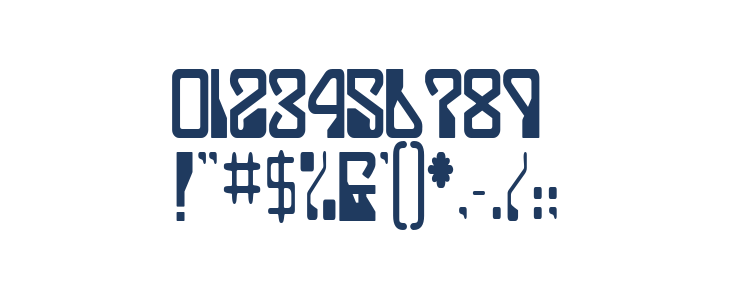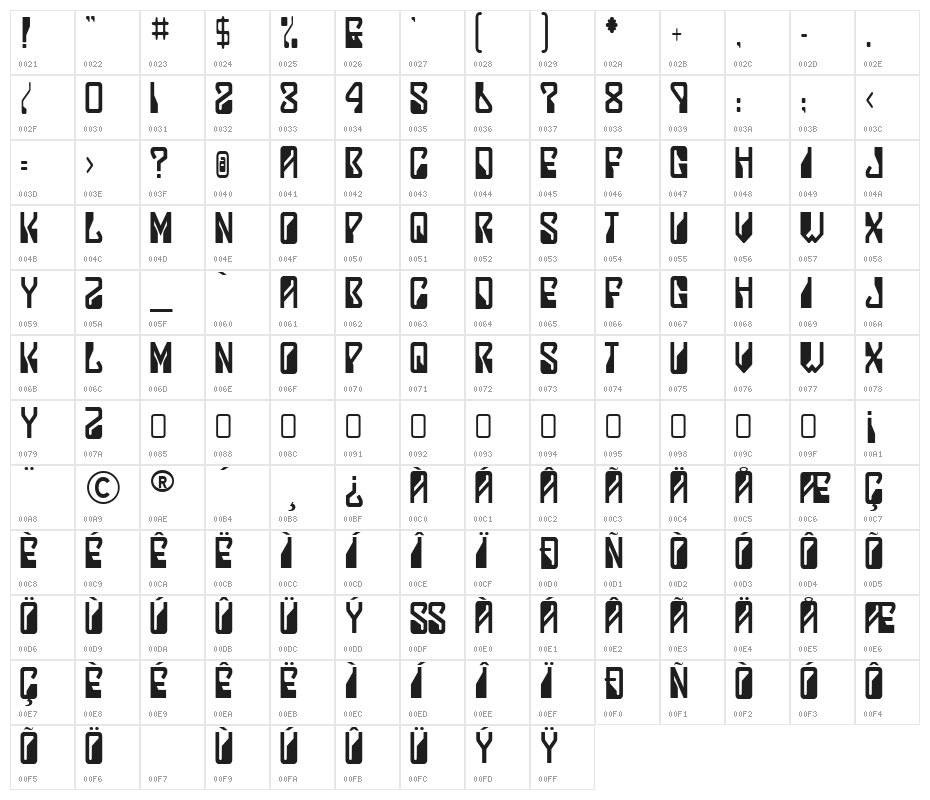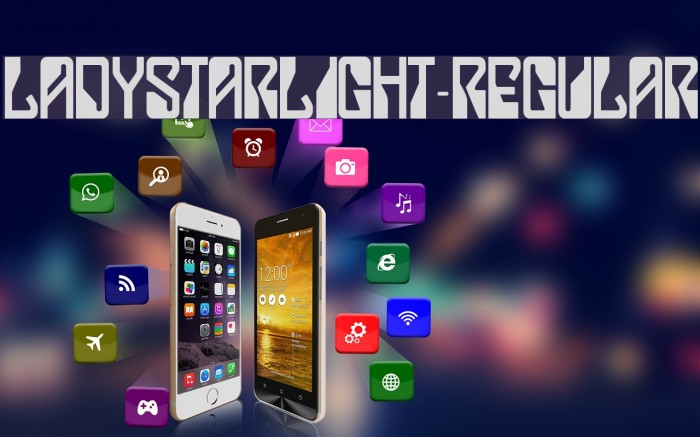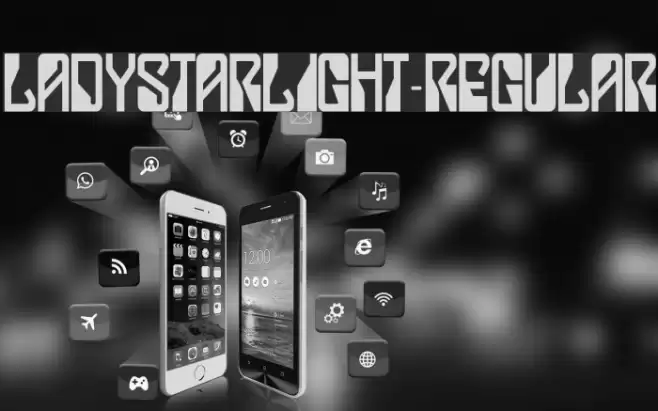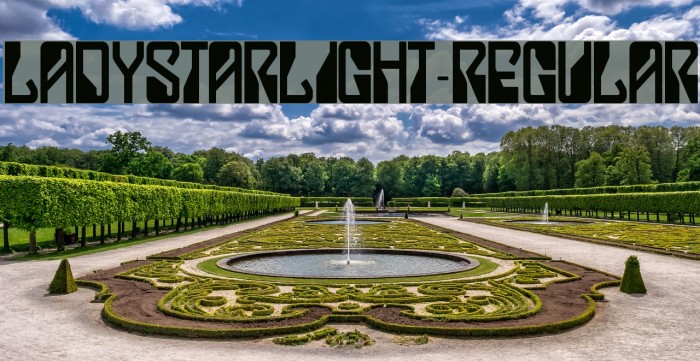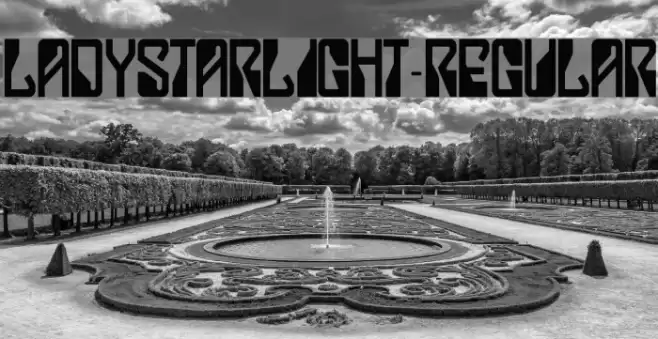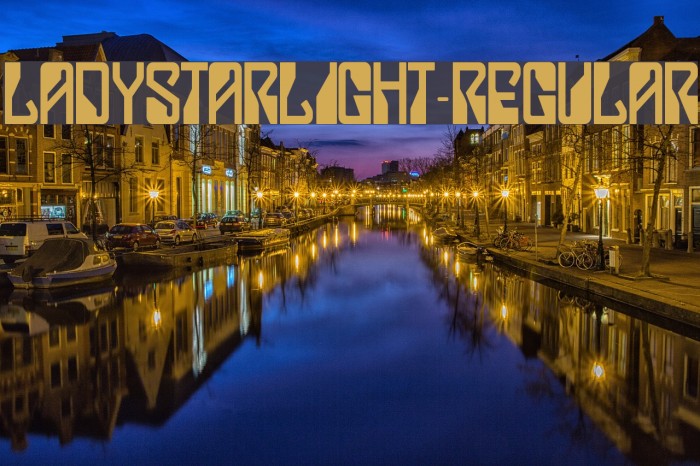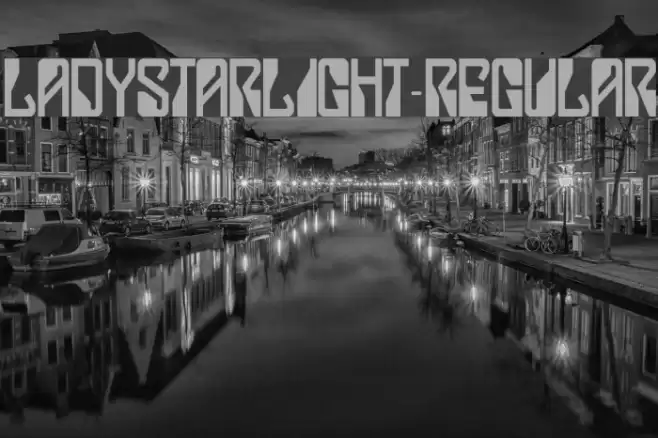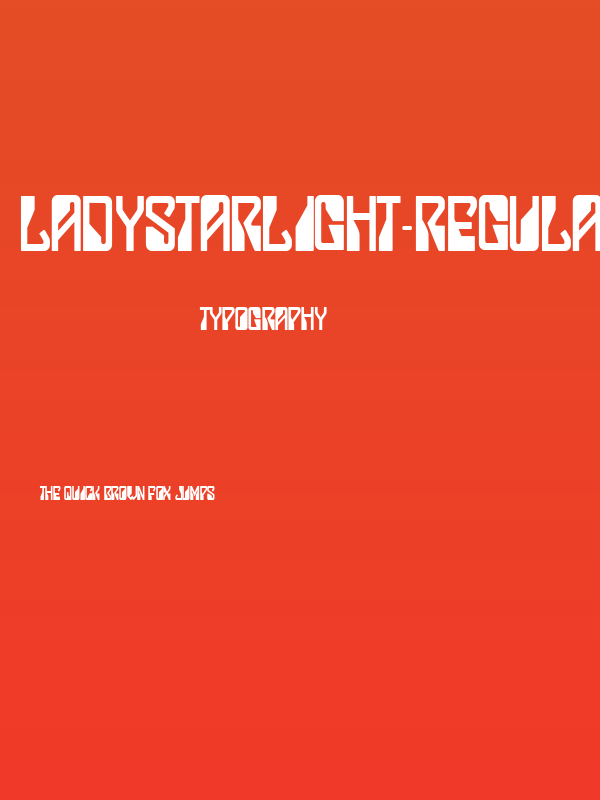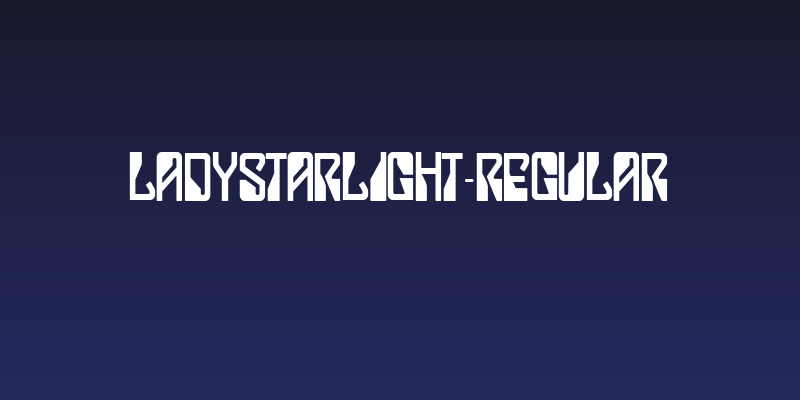
LadyStarlight-Regular Font
LadyStarlight-Regular Description
This font features a bold, geometric design with a futuristic and edgy aesthetic. The characters are constructed with sharp angles and thick strokes, creating a strong visual impact. The uppercase and lowercase letters share a consistent style, with the lowercase being slightly smaller but maintaining the same boldness. Numbers and special characters follow the same design principles, ensuring uniformity across the font. The overall look is modern and dynamic, suitable for projects that require a standout typeface.
| Proposed Projects | Ideal for branding, posters, album covers, and any design needing a modern, impactful typeface. |